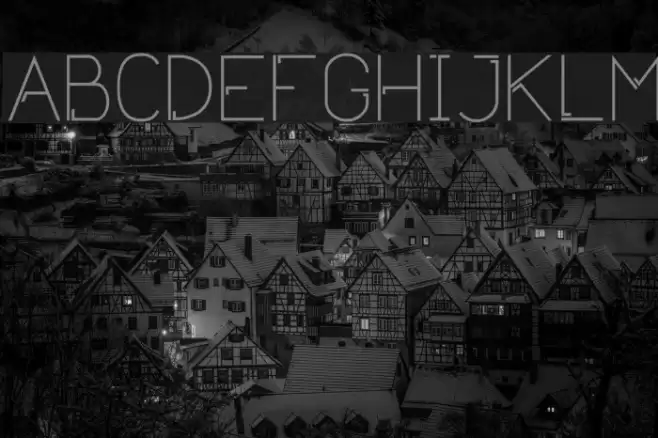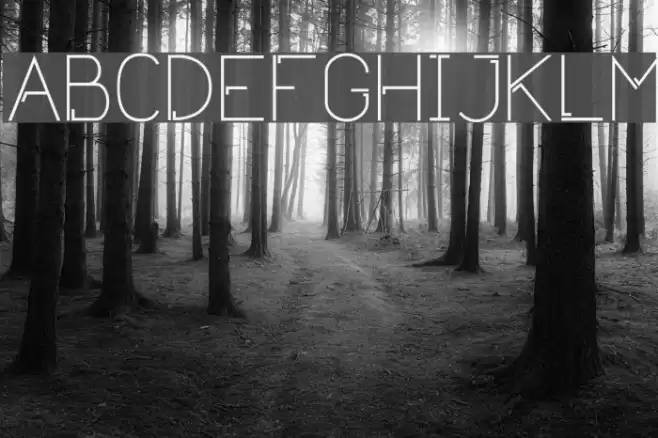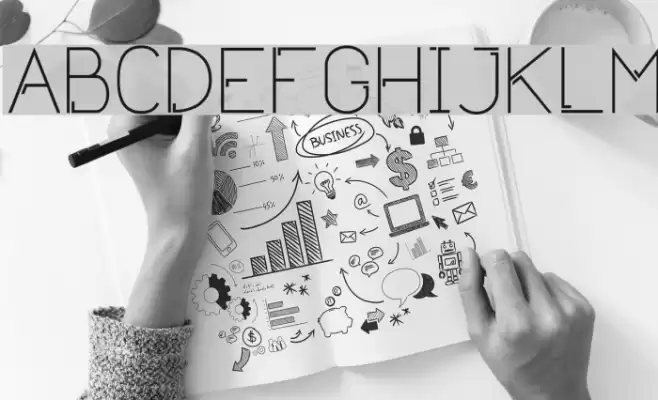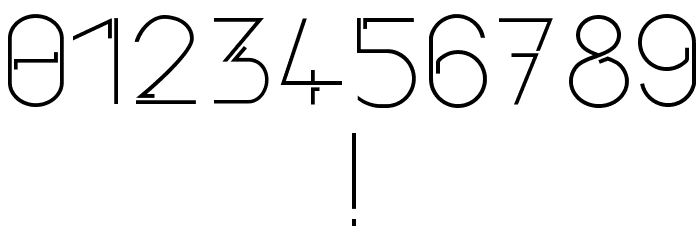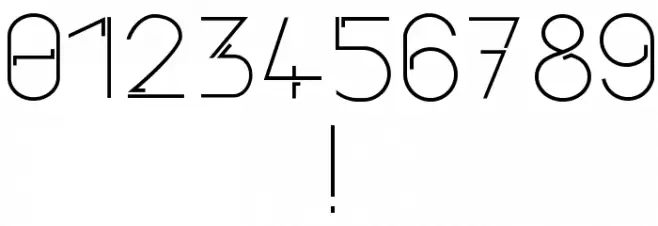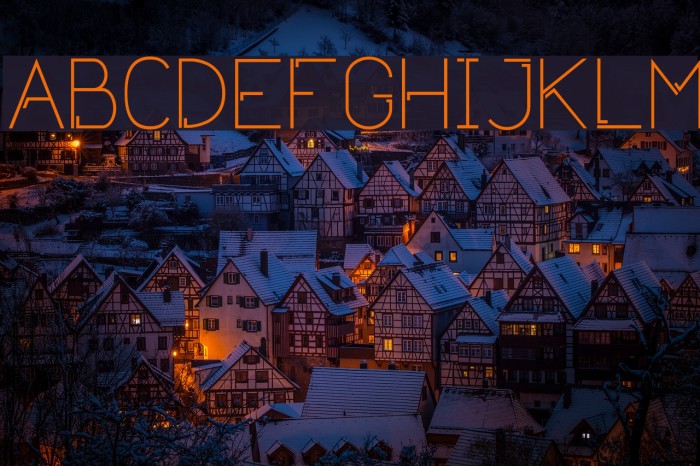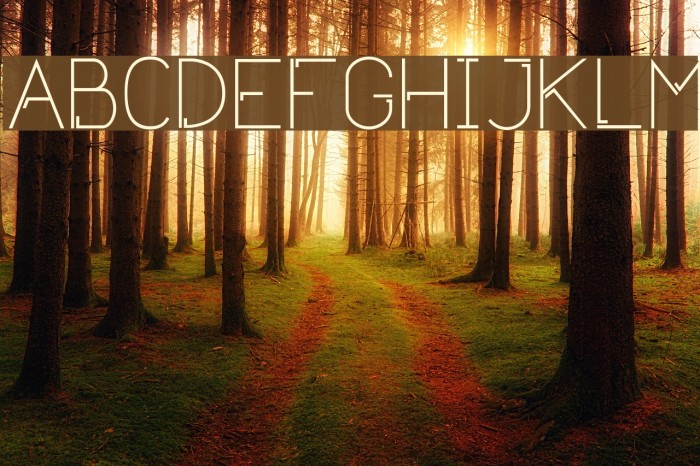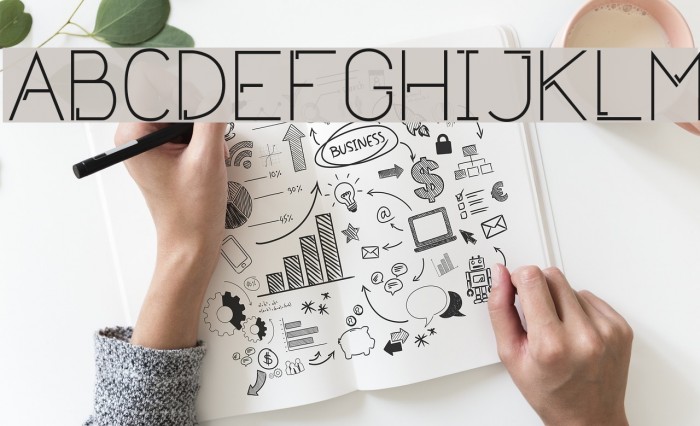
Neurotica Font
Neurotica Description
This font features a modern and geometric design with a distinctively minimalistic and futuristic aesthetic. The characters are composed of clean, straight lines and sharp angles, giving it a technical and precise appearance. The uppercase and lowercase letters maintain a consistent structure, while the numerals and special characters complement the overall style. The font's simplicity and clarity make it suitable for contemporary design projects that require a sleek and sophisticated look.
A modern, geometric font with a minimalistic and futuristic design from Uncategorized fonts.
- Proposed Projects: Ideal for tech branding, modern posters, digital interfaces, and minimalist graphic design projects.